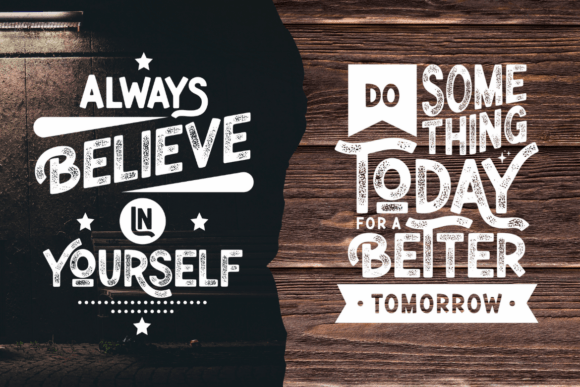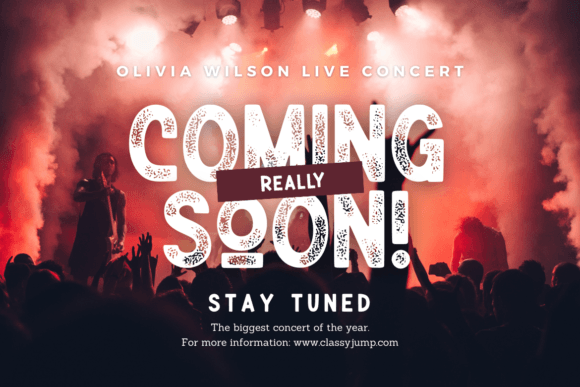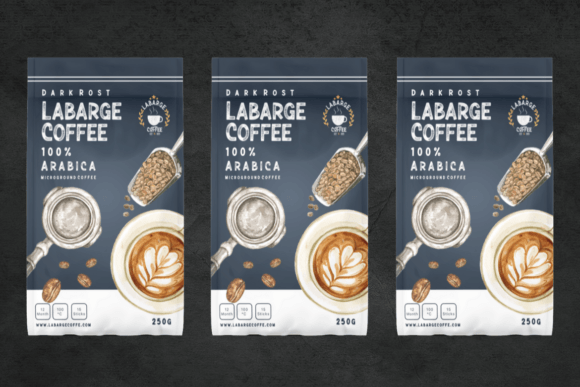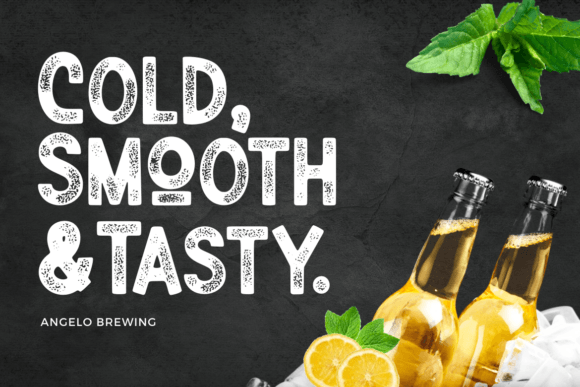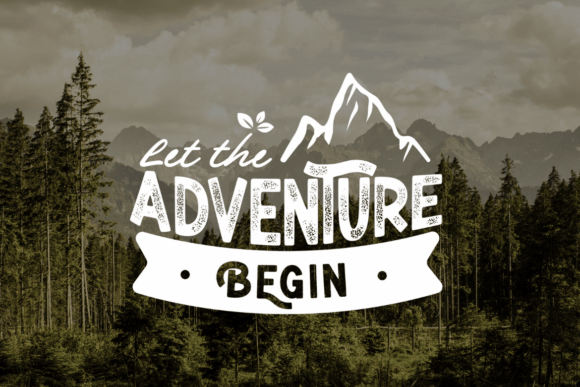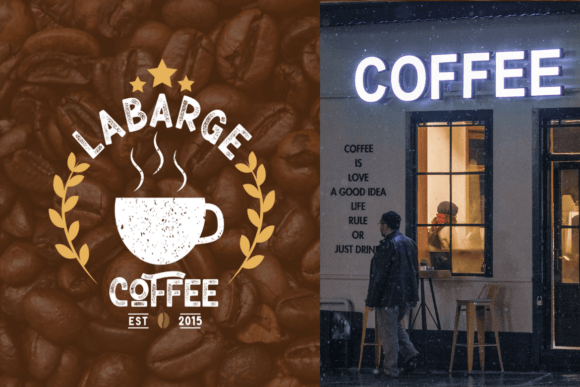
Introduction to Clintone Font
Unveiling Clintone, is a versatile display font sporting two distinctive styles, textured and solid.
Ideally matched for a vast array of design projects including but not limited to logotypes, brand creation, packaging designs, engaging social media posts, eye-catching quotes, and stunning image overlays Not only this, Clintone also perfectly underpins tagline logos, and fills the screen on posters, for print necessities, and website banners among other applications.
Clintone Font offers exceptional quality and versatility, making it a valuable addition to your design toolkit. Whether you’re creating for personal projects or commercial use, Clintone Font delivers professional results.